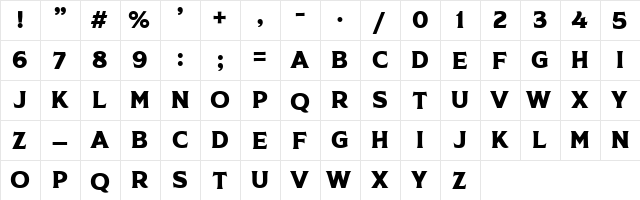
Rodfat Two Demo Regular
| Foundry | Rizki Permana Type Supply |
| Designer | Rizki Permana |
Design Context for Rodfat Two Demo Typeface
Rodfat Two Demo offers clean, dependable letterforms without strong stylistic allegiance, making it a practical choice for designers who need flexibility.
Pro Tip: Use Rodfat Two Demo in both headline and body roles to test its range before committing to a single application.